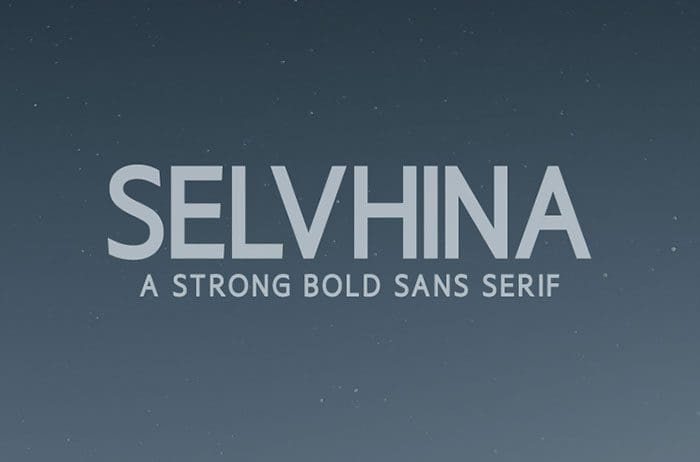
Selvhina Sans Serif Font
Selvhina is a modern sans serif font. Clean and sophisticated, this font is the perfect fit for all of your logos, branding, social media, and crafty DIY projects. Thanks to Mas Anis for sharing this font! Take a look at this portfolio for more of his stunning fonts.